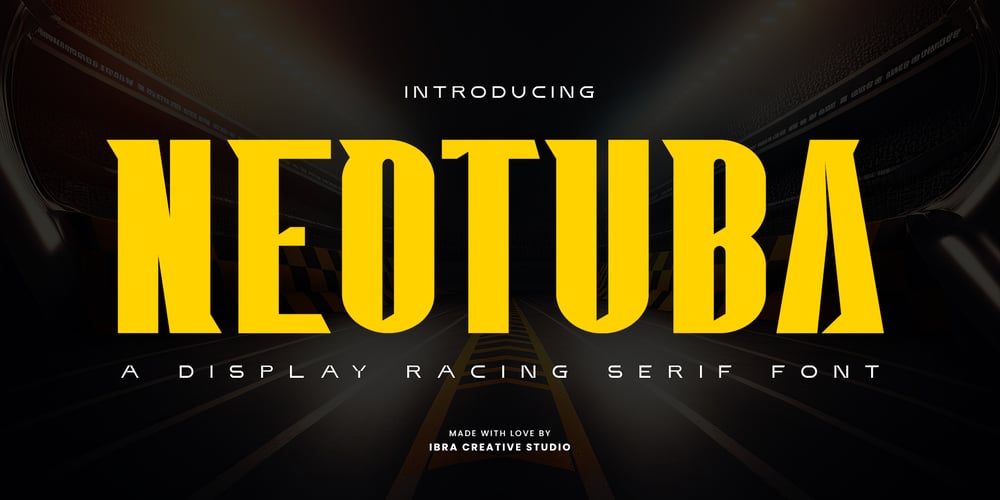
Neotuba
Neotuba font
Neotuba Font Family was designed by Roisatul Azizah and published by IbraCreative. Neotuba contains 1 styles and family package options. Neotuba – A Display Racing Serif FontNeotuba, a captivating display racing serif font, seamlessly marries classic elegance with a contemporary edge. Its sleek, elongated letterforms convey a sense of speed and dynamism, making it an ideal choice for racing-themed designs or any project that demands a touch of velocity. The font exudes a refined sophistication through its precisely crafted serifs and balanced letter proportions, ensuring readability even at high speeds. Neotuba’s distinctive design captures the essence of speed and precision, making it a versatile and eye-catching choice for headlines, logos, or any creative endeavor where a racing-inspired aesthetic is desired.Neotuba is perfect for branding projects, logo, wedding designs, social media posts, advertisements, product packaging, product designs, label, photography, watermark, invitation, stationery, game, fashion and any projects.Fonts include multilingual support for; Afrikaans, Albanian, Czech, Danish, Dutch, English, Estonian, Finnish, French, German, Hungarian, Italian, Latvian, Lithuanian, Norwegian, Polish, Portuguese, Slovak, Slovenian, Spanish, Swedish.